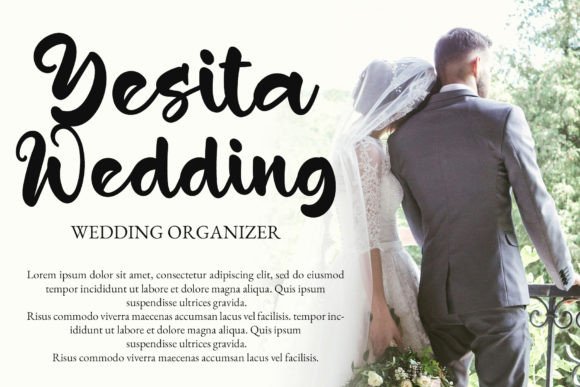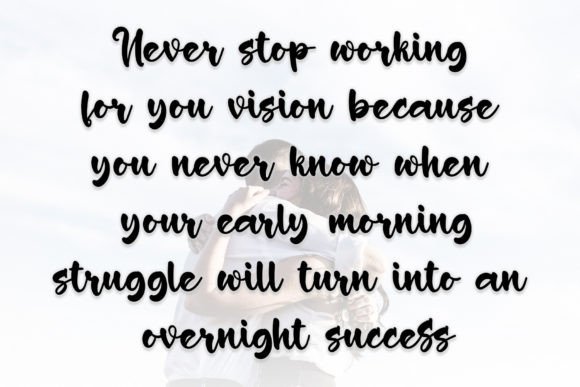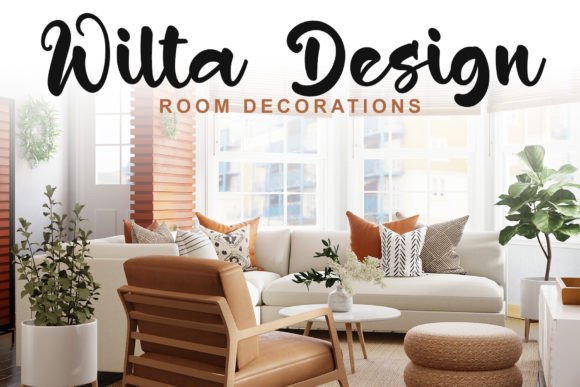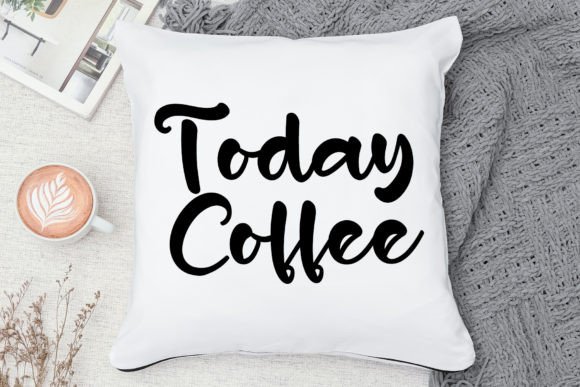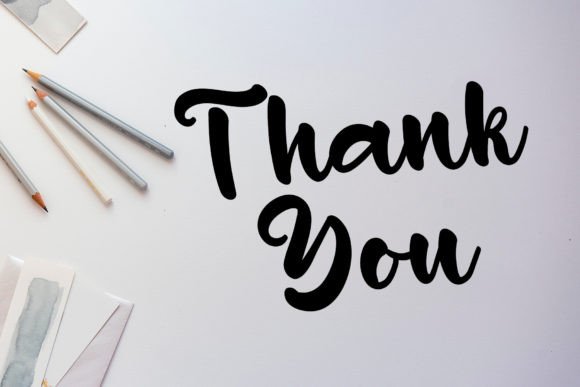
Introducing Blissful Lettering Font: Elevate Your Creativity with Elegance
Are you a designer, crafter, or DIY enthusiast looking for a font that can add a touch of magic to your creative projects? Look no further than Blissful Lettering Font, a beautiful script font designed to bring elegance and sophistication to your work. In this article, we’ll explore the features and benefits of Blissful Lettering Font, and show you how it can help you turn your creative ideas into stunning works of art.
The Magic of Blissful Lettering Font
Blissful Lettering Font is a carefully crafted script font that combines the beauty of calligraphy with the elegance of modern typography. With its flowing lines, intricate details, and whimsical flourishes, this font is perfect for adding a touch of magic to any creative project. Whether you’re looking for fonts for Instagram, calligraphy scripts for DIY projects, or a unique font for your next design project, Blissful Lettering Font is the perfect choice.
Key Features of Blissful Lettering Font
- Elegant Script Design: Blissful Lettering Font features a beautiful script design with flowing lines, intricate details, and whimsical flourishes.
- Magical Flair: This font has a touch of magic that will add a unique and creative twist to your projects.
- Perfect for DIY Projects: With Blissful Lettering Font, you can create stunning calligraphy scripts for your DIY projects, such as handmade cards, gift tags, and more.
- Instagram-Worthy: This font is perfect for creating beautiful and eye-catching text for your Instagram posts and stories.
Benefits of Using Blissful Lettering Font
So why choose Blissful Lettering Font for your creative projects? Here are just a few benefits of using this amazing font:
- Adds Elegance and Sophistication: Blissful Lettering Font adds a touch of elegance and sophistication to any project, making it perfect for designers and crafters who want to create high-end looking work.
- Unique and Creative: This font has a unique and creative twist that will set your projects apart from the rest.
- Versatile: Blissful Lettering Font can be used for a wide range of creative projects, from Instagram posts to DIY crafts.
- Time-Saving: With Blissful Lettering Font, you can create beautiful calligraphy scripts in minutes, saving you time and effort.
Tips for Using Blissful Lettering Font
Here are a few tips for getting the most out of Blissful Lettering Font:
- Experiment with Different Sizes and Colors: Try out different sizes and colors to see what works best for your project.
- Pair with Other Fonts: Blissful Lettering Font pairs well with other fonts, so don’t be afraid to experiment with different combinations.
- Use for Headings and Titles: This font is perfect for headings and titles, adding a touch of elegance and sophistication to your work.
Blissful Lettering Font is a magical script font that can add a touch of elegance and sophistication to any creative project. With its flowing lines, intricate details, and whimsical flourishes, this font is perfect for designers and crafters who want to create stunning works of art. Whether you’re looking for fonts for Instagram, calligraphy scripts for DIY projects, or a unique font for your next design project, Blissful Lettering Font is the perfect choice. So why wait? Download Blissful Lettering Font today and start creating your own magical works of art!